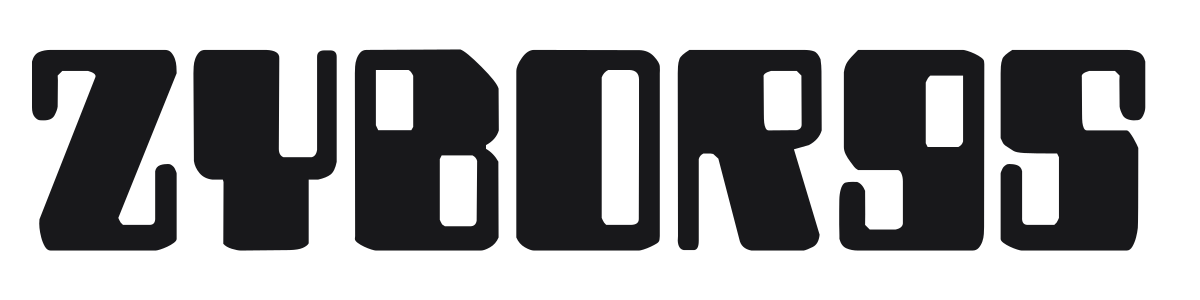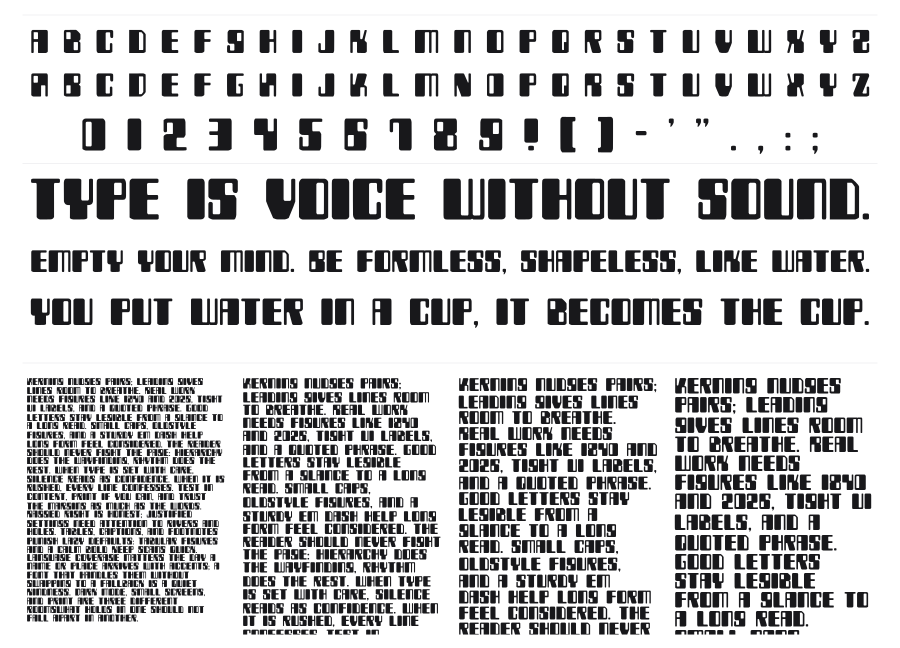
Zyborgs
Zyborgs is a heavy modular square font built from thick rectangular blocks with notched cutouts that give each character a segmented, robotic feel. The extreme weight and rigid geometry make it read as forceful and mechanical at a glance. Designed for headlines, game titles, and sci-fi themed projects where maximum visual impact matters.